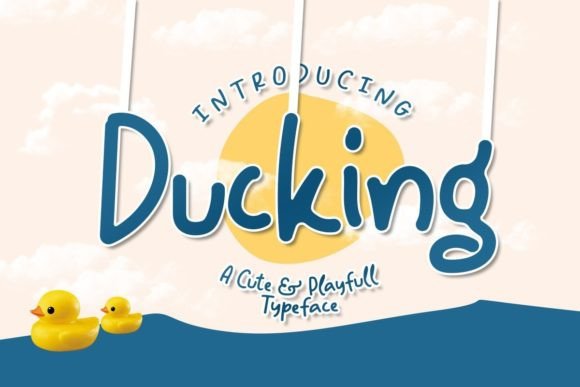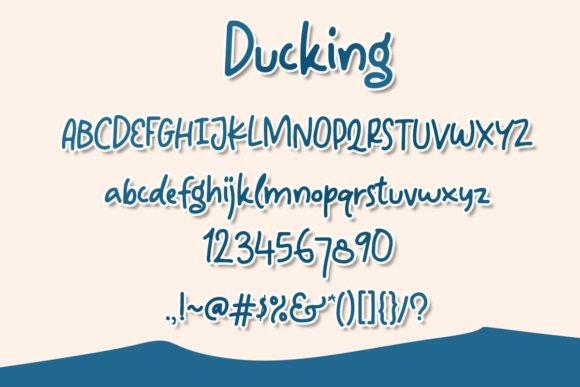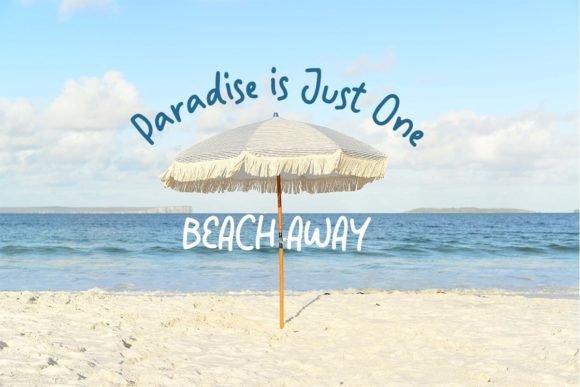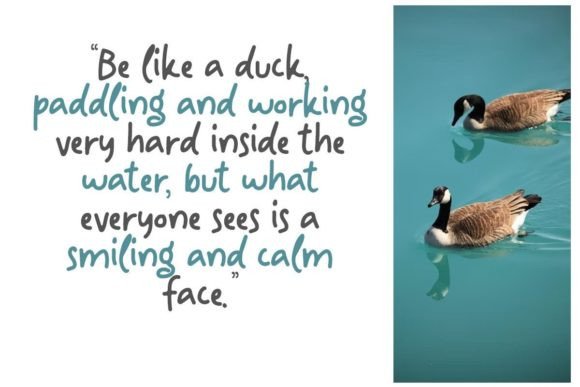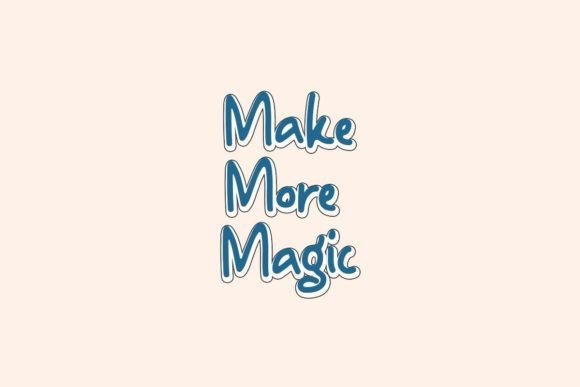
Ducking Font
About Ducking Font
“Ducking Feels” is introduced as a playfully handmade font that delivers a delightful and playful handwritten style. This display font is suggested as a tool to add a special playful touch to a wide range of design ideas. Crafted with a masterful touch, “Ducking Feels” has the potential to become a true favorite, elevating each creative idea to the highest level.
The term “playfully handmade” implies a sense of spontaneity and creativity, suggesting that each character has been crafted with a playful and whimsical spirit. Handwritten fonts with a playful touch often bring a sense of joy and lightheartedness to designs, making them suitable for a variety of applications.
As a display font, “Ducking Feels” is positioned to stand out and make a statement in various design contexts. Display fonts are often used for headlines, titles, or any text that requires emphasis, and “Ducking Feels” aims to bring a special playful quality to such instances.
The font’s versatility is hinted at by the encouragement to use it for any design idea you can think of. This suggests that “Ducking Feels” is not limited to specific themes or styles, allowing designers to experiment and explore its playful charm in a variety of creative projects.
In summary, “Ducking Feels” is presented as a playfully handmade and delightful display font. Its playful handwritten style, masterful design, and potential to elevate creative ideas make it a promising choice for designers seeking to infuse a touch of joy and whimsy into their projects, allowing each design to reach its highest level of creativity and impact.